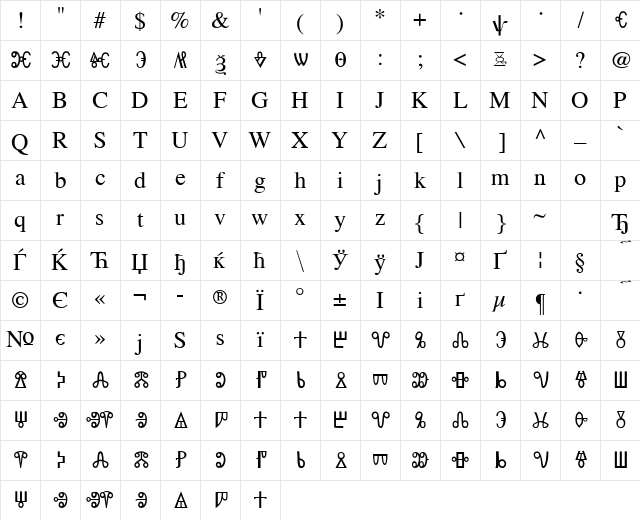
Complete Old Church Slavonic Gla Regular glyph index. Displaying only characters natively supported by Old Church Slavonic Gla Regular font.
Old Church Slavonic Gla is a composed and adaptable typeface that performs quietly and consistently across a wide range of design contexts.